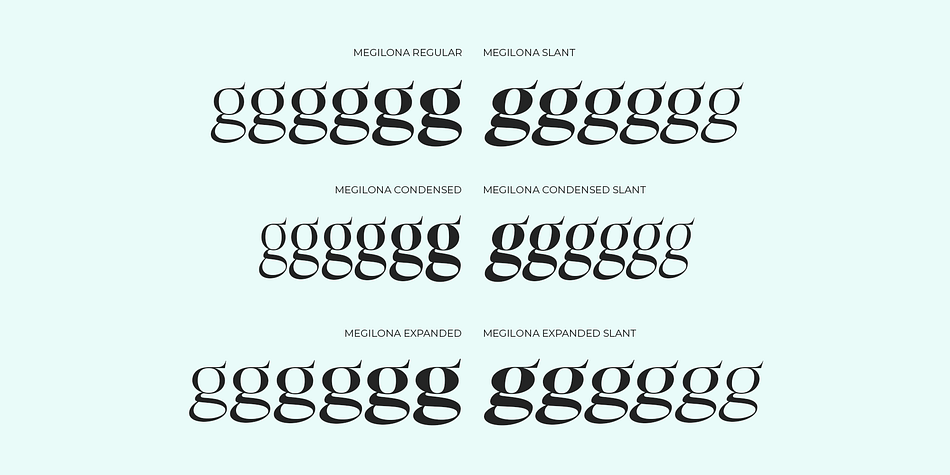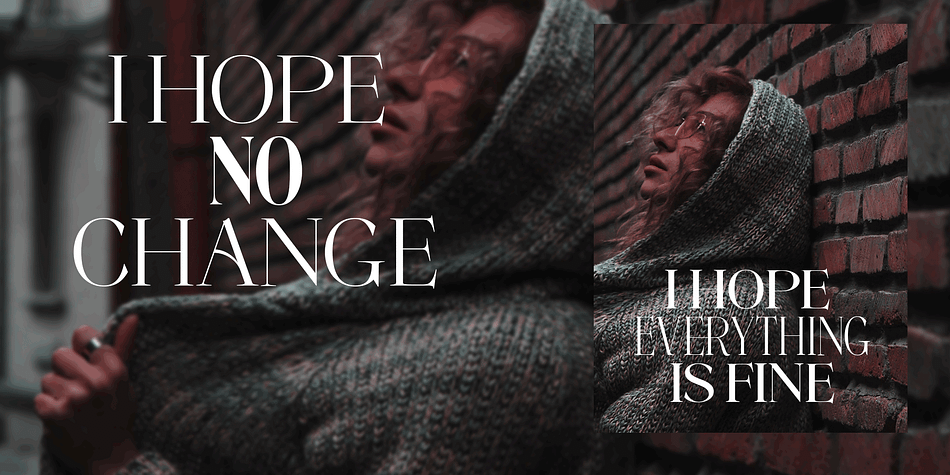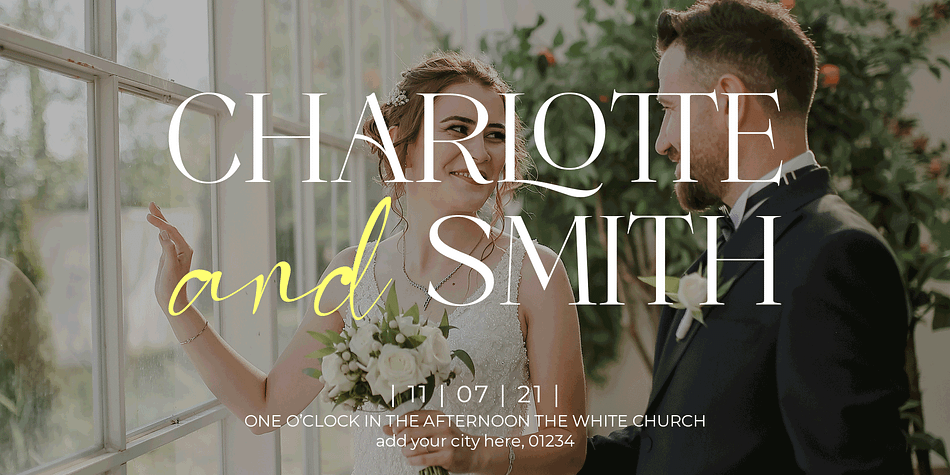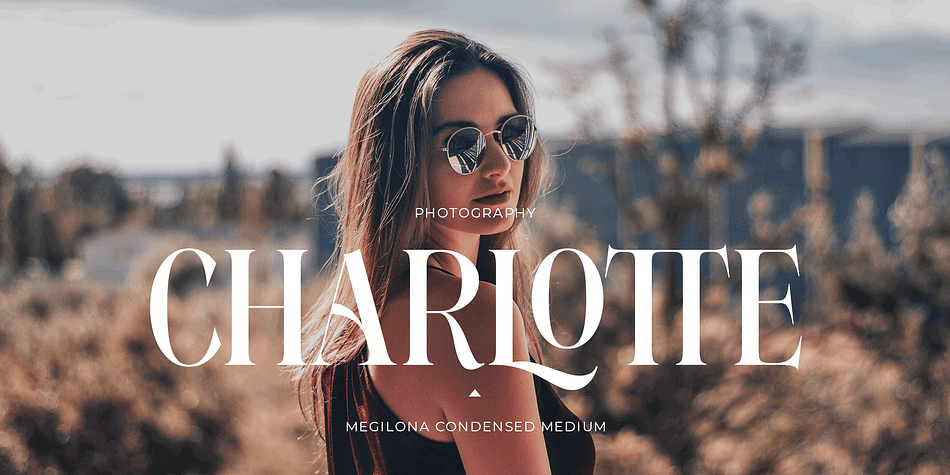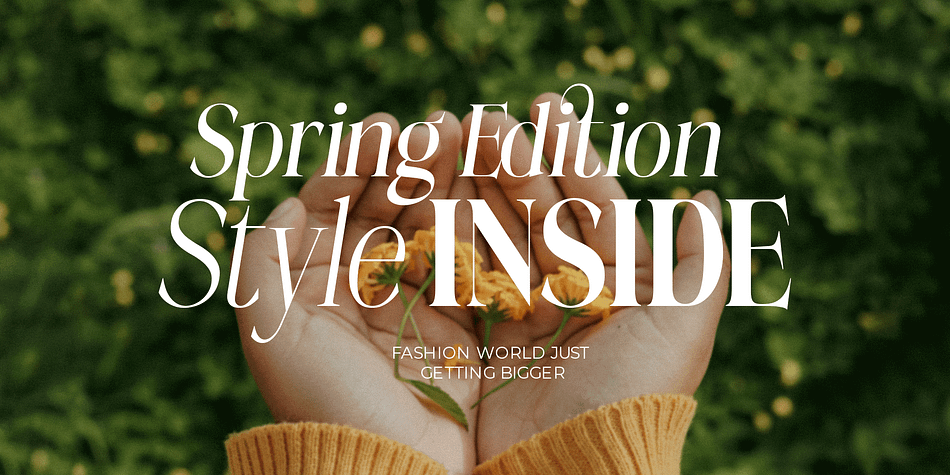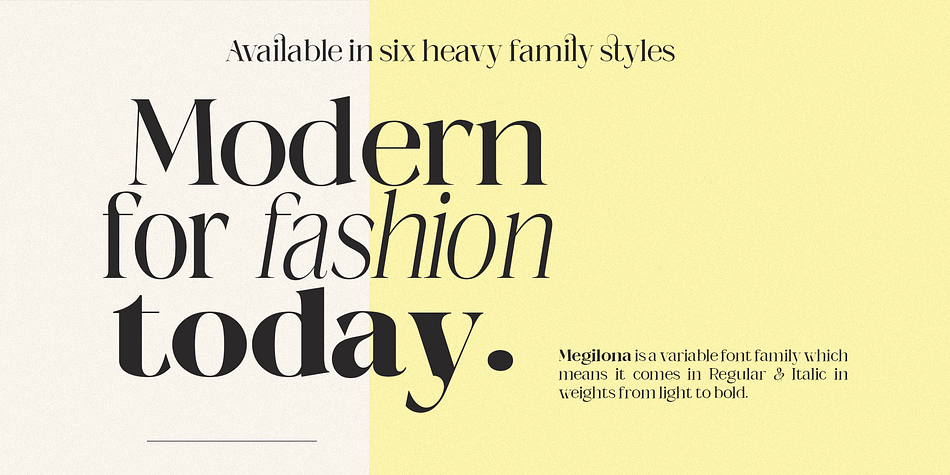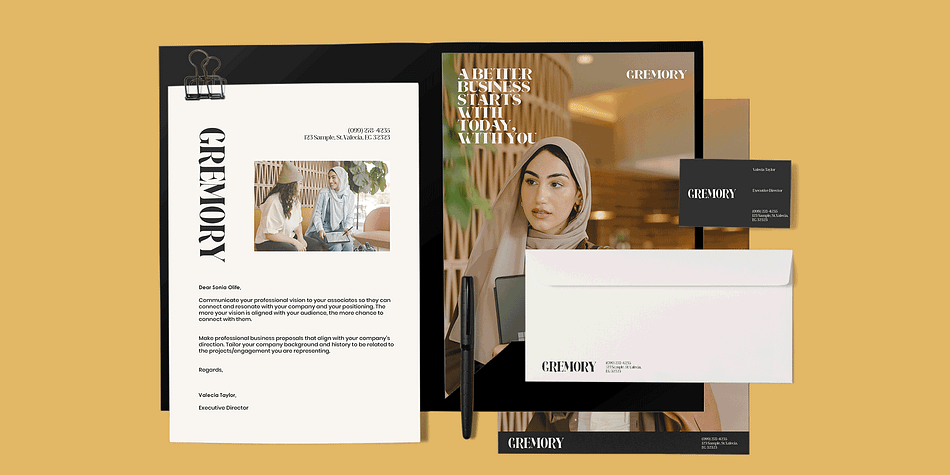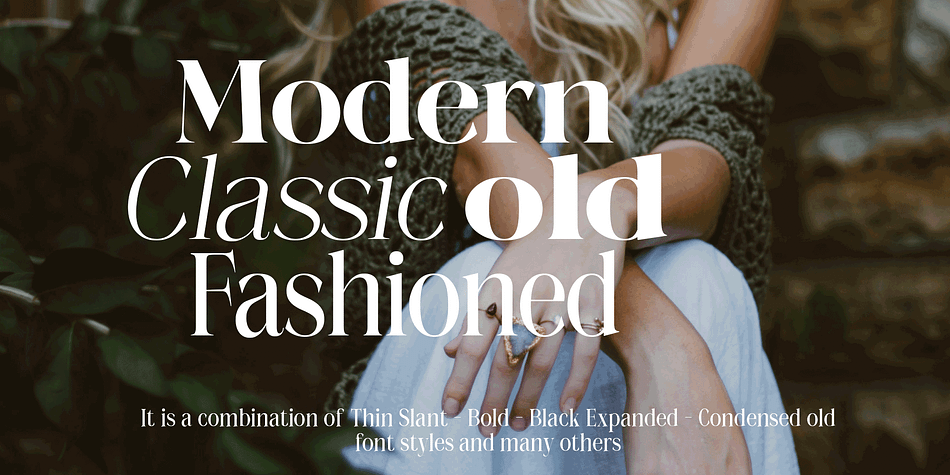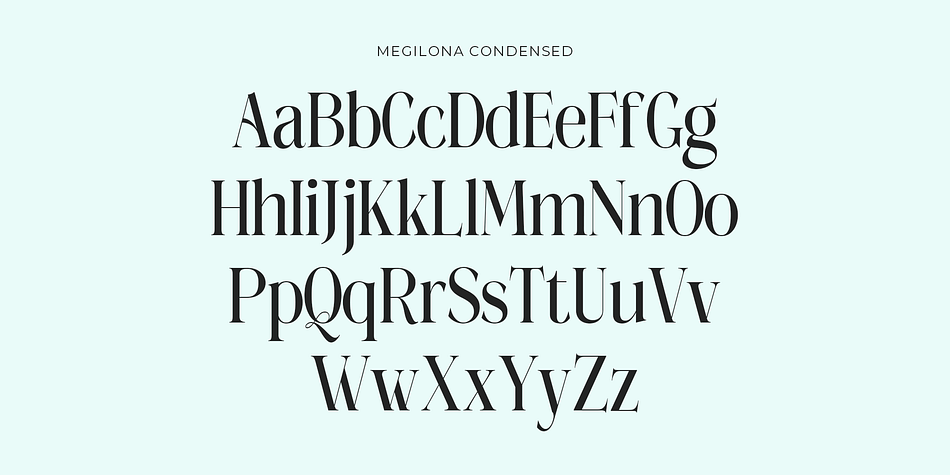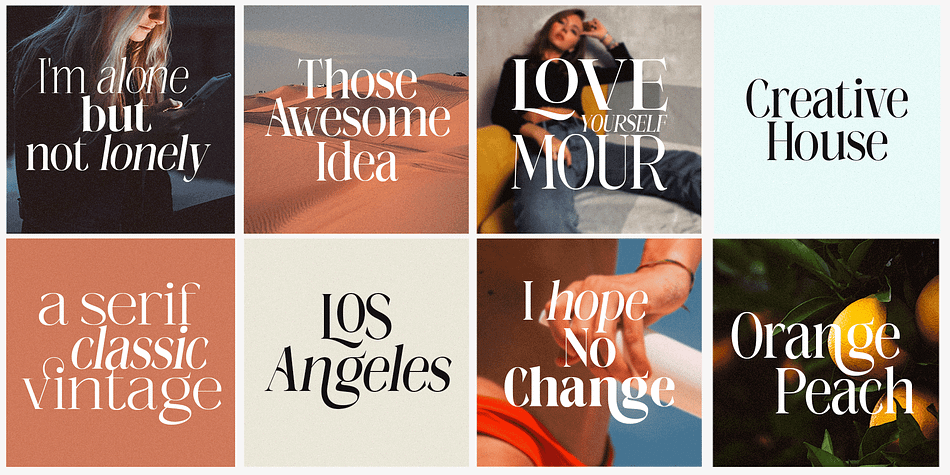
Megilona
Megilona is a display serif font family. This typeface has thirty-six styles and was published by Black Studio.
New from Black Studio, presenting Megilona is a typeface that is feminine, adaptable, aesthetically contemporary and creates limitless variety for your creative needs.
Megilona really helps you create unlimited variations for your creative needs in making your project titles: such as Books, fashion, magazines, logos, branding, photography, invitations, wedding invitations, quotes, blog headers, posters, advertisements, postcards, books, websites, etc.